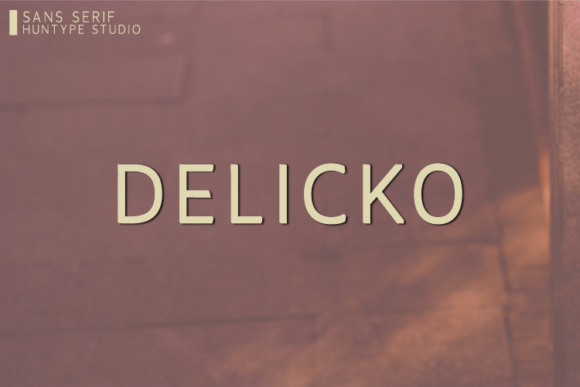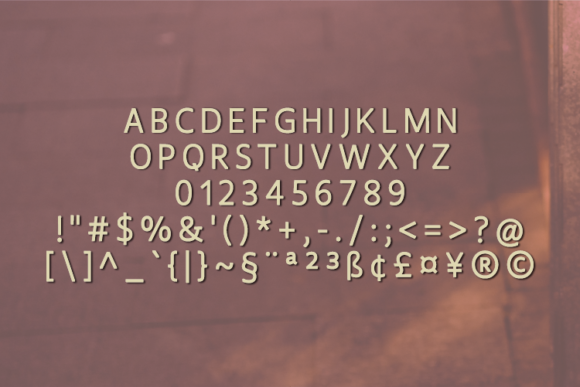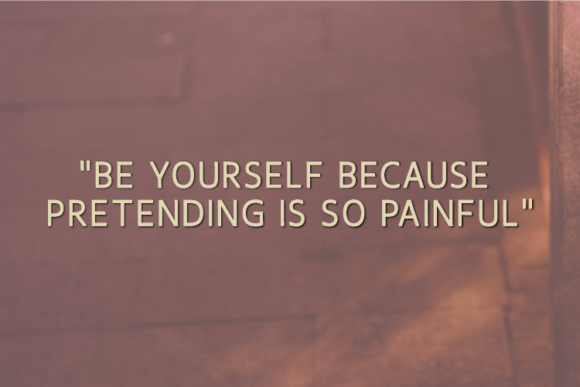
You know that moment when a single element brings all your design ideas together? For many designers, it’s the font that makes or breaks a project. I’m sure you’ve experienced it too – staring at a blank page, trying to find the perfect combination of colors, shapes, and typography to make your vision come alive. It’s that moment when you realize that the right font can elevate your entire design and make it truly stand out.
Enter the Delicko Font, a sleek and modern sans serif font that’s perfect for a wide range of projects. Whether you’re working on a logo, a brochure, or a website, Delicko Font’s clean lines and minimalist aesthetic make it an ideal choice. Its versatility and readability make it a valuable addition to any designer’s toolkit.
With Delicko Font, you can take your creative ideas to the next level and bring them to life in a way that’s both visually appealing and professional-looking. So why not give it a try and see how it can enhance your designs?
Delicko Font Key Features
- Font Family: Delicko Font is a sans-serif typeface with a modern and clean design, suitable for digital and print media.
- Character Set: Supports a wide range of languages, including Latin, Cyrillic, Greek, and many others, making it a versatile choice for global audiences.
- Size and Resolution: Designed to work well at various sizes, from 8pt to 48pt, with optimal results at 300 DPI (dots per inch) and above.
- Unique Characteristics: Delicko Font features a distinctive x-height, precise geometric shapes, and a subtle rounded edge, giving it a friendly and approachable feel.
Delicko Font Review
As a designer, I was excited to dive into the world of Delicko Font, a modern sans-serif typeface that promises to bring a touch of sophistication to any project. ✨ First impressions were overwhelmingly positive – the clean lines, crisp edges, and elegant proportions make it an instant standout in my opinion.
Here are some of the things I love about Delicko Font:
- Its versatility makes it perfect for a wide range of applications, from body text to headlines and even signage.
- The font’s unique character set and clever use of ligatures make it a great choice for creative projects that require a bit of flair.
- The overall aesthetic is sleek, modern, and effortlessly cool – exactly what I’m looking for in a font.
Of course, no font is perfect, and Delicko Font is no exception. ⚠️ Some potential limitations I’ve noticed include:
- The font may not be suitable for very small text sizes, as the thin strokes can become difficult to read.
- The lack of italic and bold styles may limit its use in certain situations.
Overall, I’m thoroughly impressed with Delicko Font. While it may not be the most versatile font in the world, its unique strengths and stylish aesthetic make it a solid choice for designers looking to add a touch of sophistication to their projects.
Delicko Font Practical Application Guide
To use Delicko Font in PowerPoint or Word, select the font from the font dropdown menu. You can adjust the font size, color, and style to suit your presentation or document needs. Delicko Font is suitable for creating headings, titles, and other text elements that require a touch of sophistication and elegance.
Tips for Getting the Most Out of Delicko Font
Delicko Font is a versatile font that can be used in a variety of design contexts. To get the most out of it, use it sparingly as a heading or title font, and pair it with a clean and simple body font. Experiment with different font sizes, colors, and styles to create a unique and stylish look.
Delicko Font is commonly used in design projects that require a touch of elegance and sophistication, such as:
- Typography-based artwork and graphics
- Headings and titles for presentations and documents